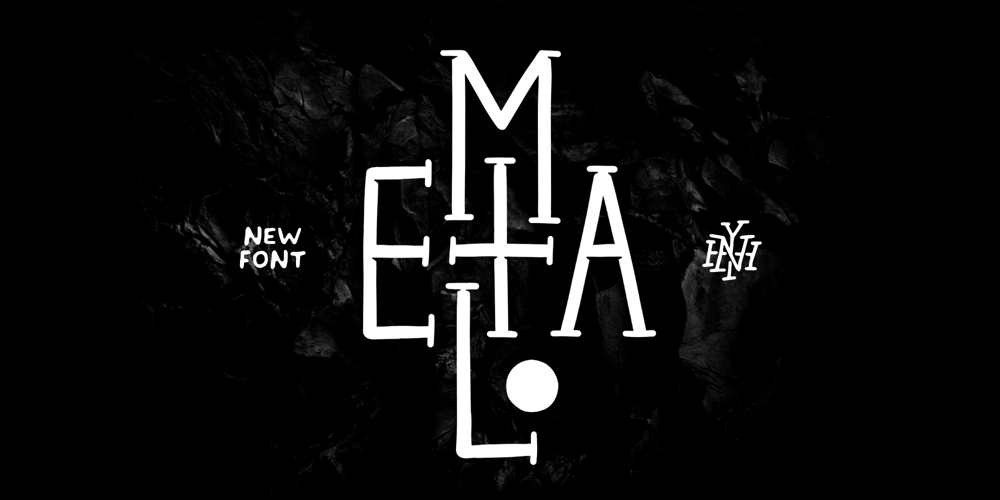
Metal DD
Metal DD font
Metal DD Font Family was designed by Alexey Potapov and published by Doffdog. Metal DD contains 1 styles and family package options. METAL is a hand-lettered modern serif font. This all caps font includes punctuation and numerals. It is perfect for: Logos Posters Headlines Apparel & more Multilingual supportStay true! Stay metal!